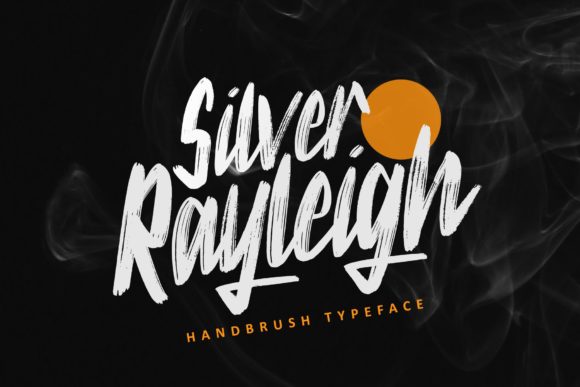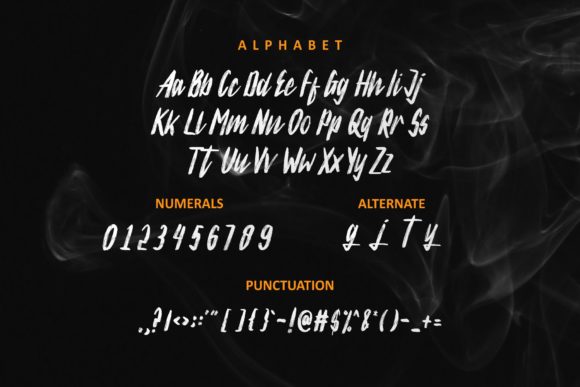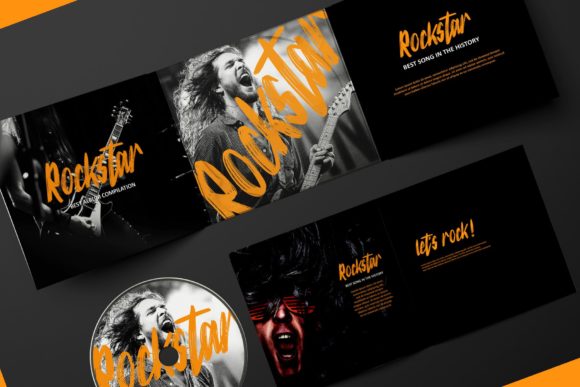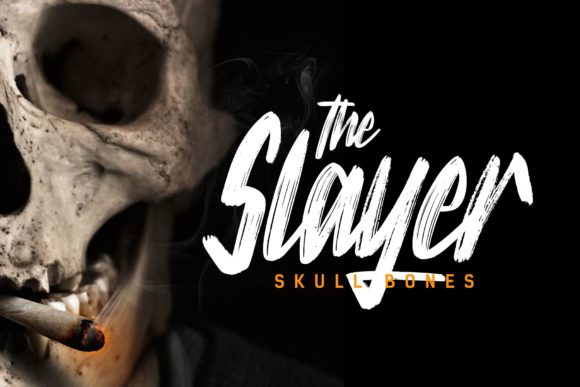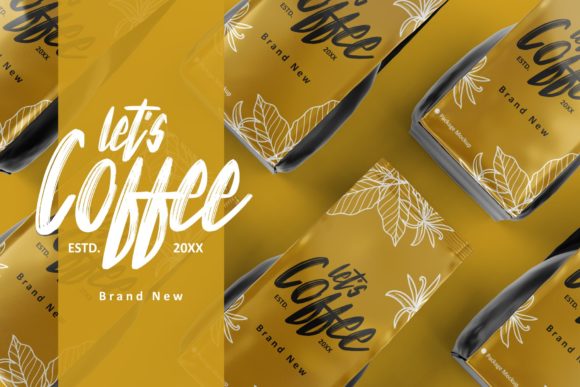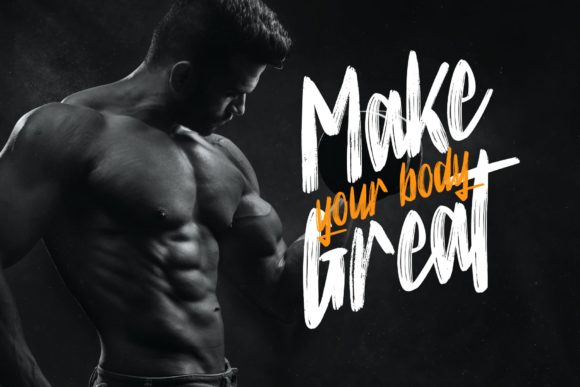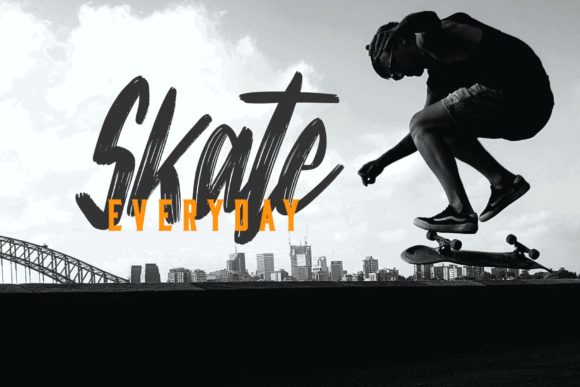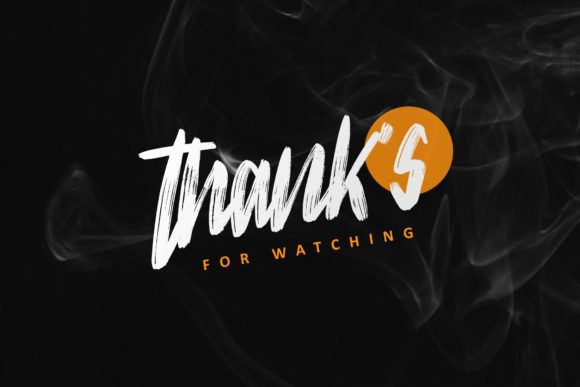
Silver Rayleigh Font
About Silver Rayleigh Font
Silver Rayleigh is a truly bold and powerful handwritten font that effortlessly combines legibility and charm!